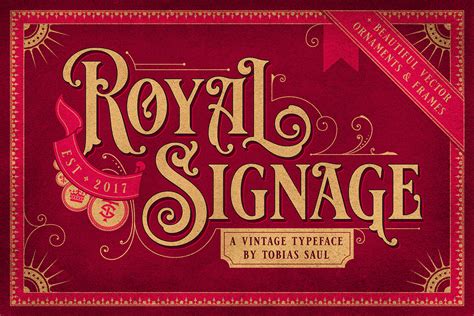
Royal Signage Font - Royal signage is a vintage type font by heritage type co that looks at the appeal of retro decal designs and stencil signage. Ideal for signage, invitations, branding, and any project requiring a touch of elegance. Royal signage_1.4 ttf (400) by tobiassaul.
Royal Signage is a Vintage Font inspired by beautiful vintage sign art
Royal Signage Is A Vintage Type Font By Heritage Type Co That Looks At The Appeal Of Retro Decal Designs And Stencil Signage.